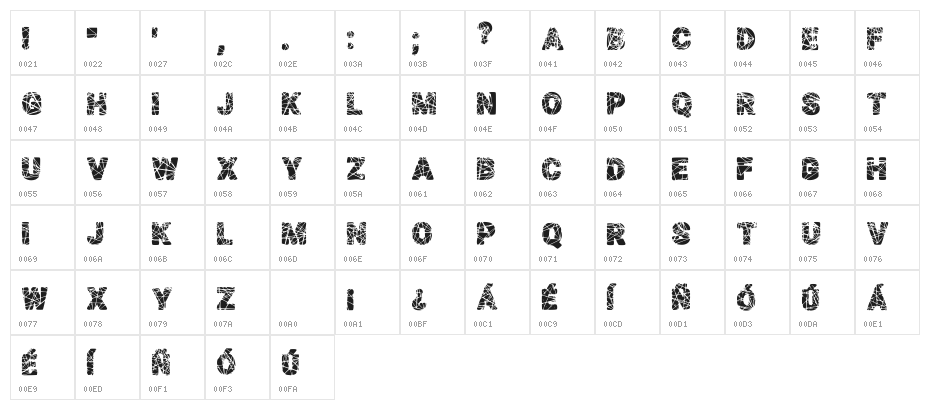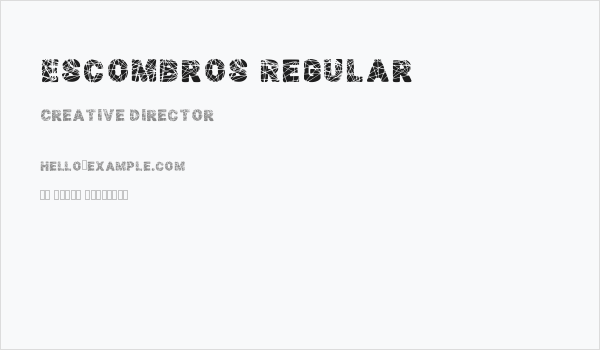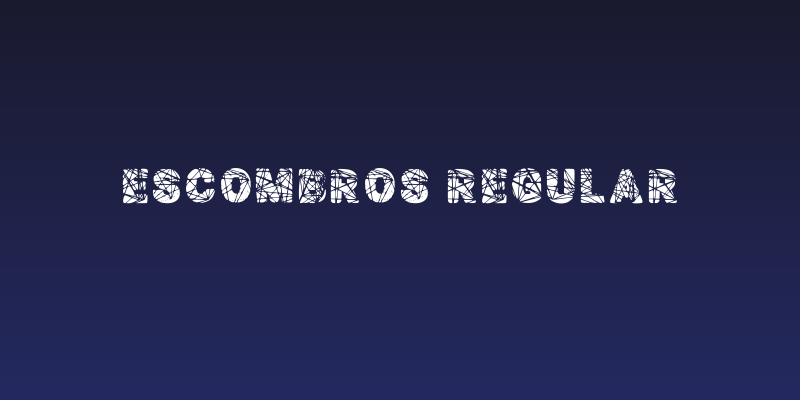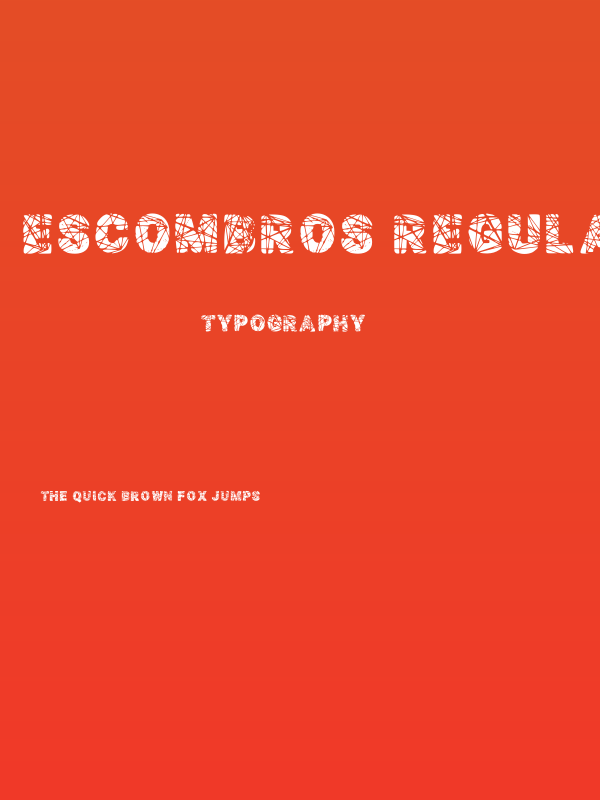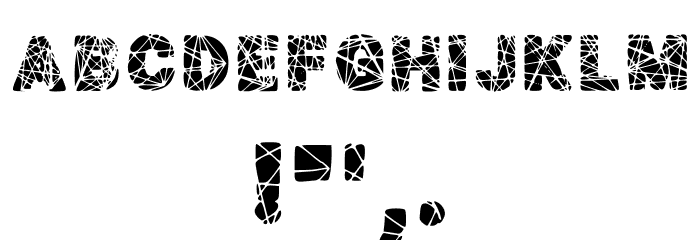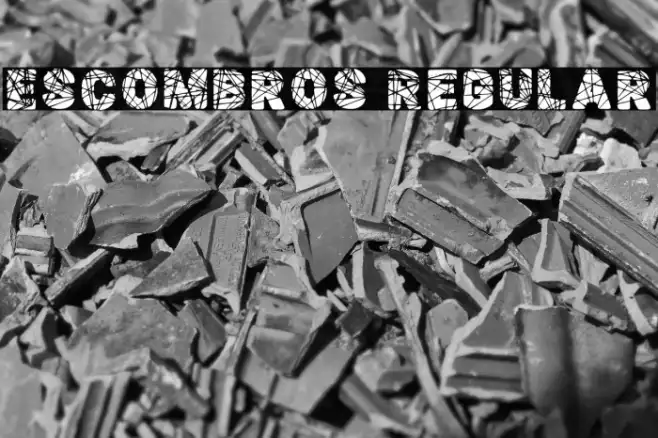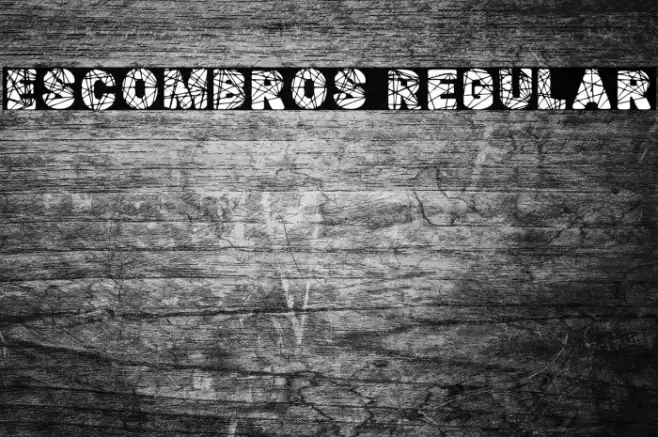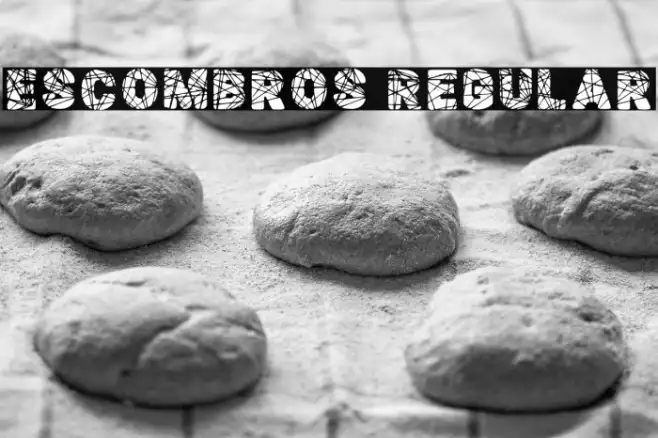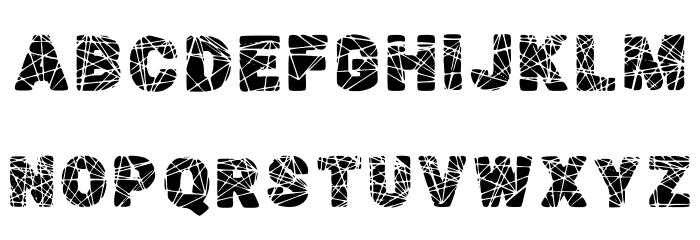
Escombros Regular Font
Escombros Regular Description
This font features a unique, fragmented design that resembles shattered glass or debris. Each character is composed of irregular, angular shapes that create a dynamic and chaotic appearance. The bold, blocky structure of the letters ensures readability despite the intricate internal pattern. This font is highly decorative and makes a strong visual impact, suitable for eye-catching designs. The uppercase letters are consistent in style, maintaining the shattered motif throughout. The special characters also follow this theme, adding to the overall cohesive look.
| Proposed Projects | Ideal for posters, album covers, or any project needing a striking, edgy aesthetic. |